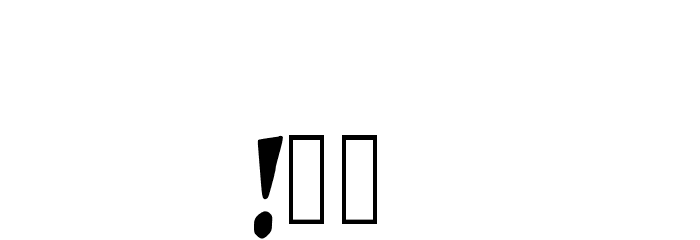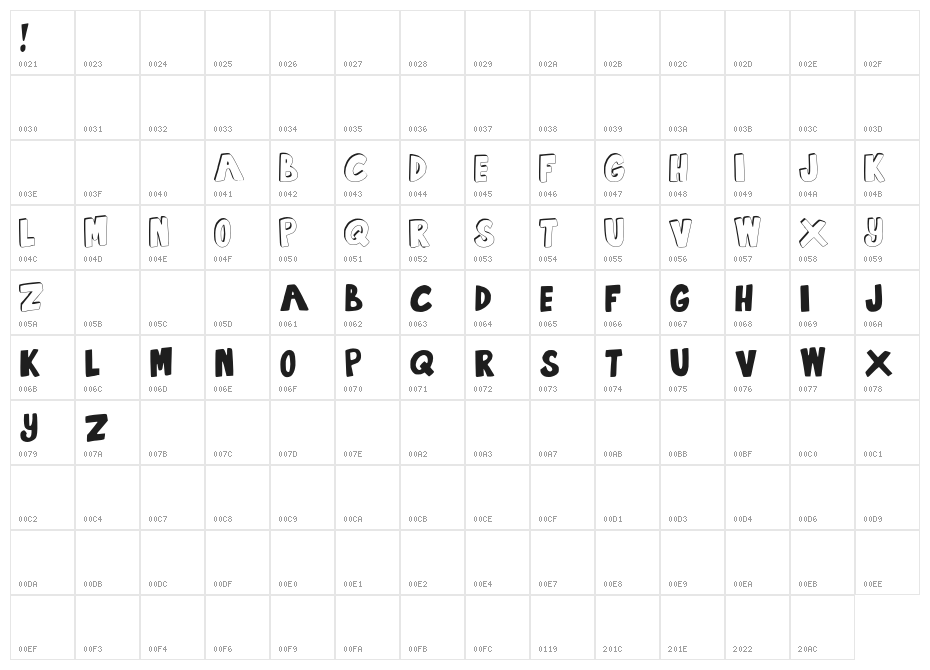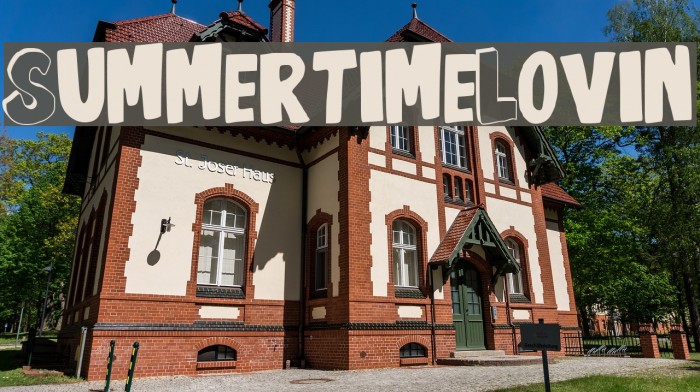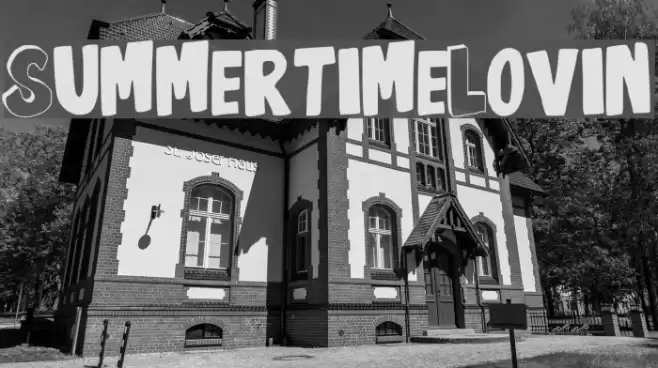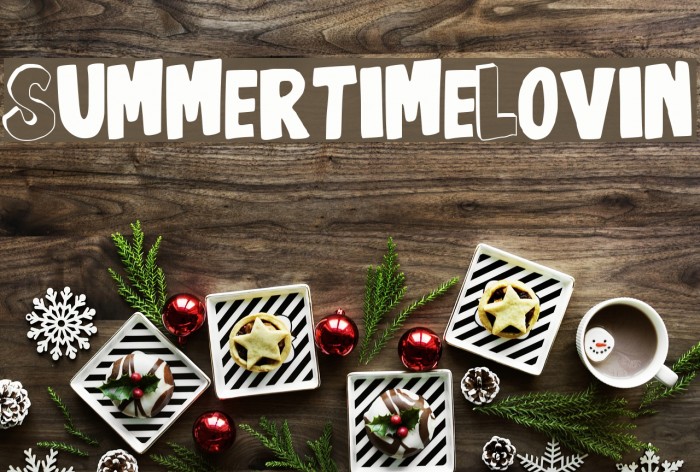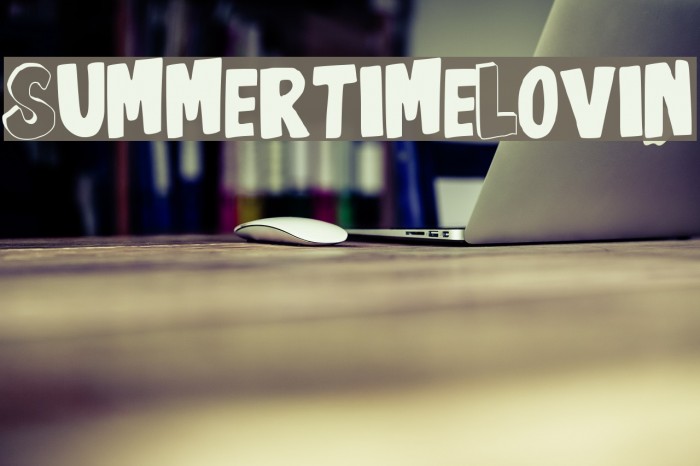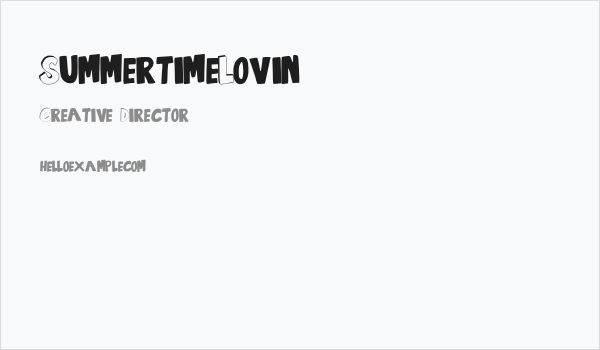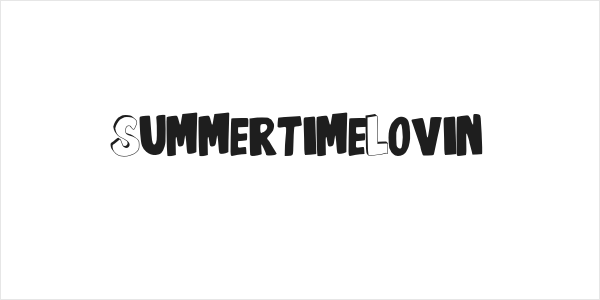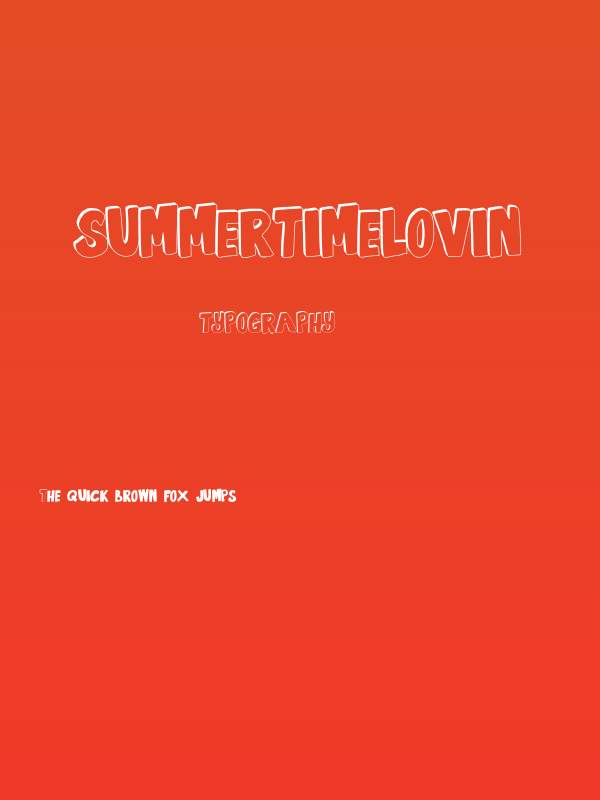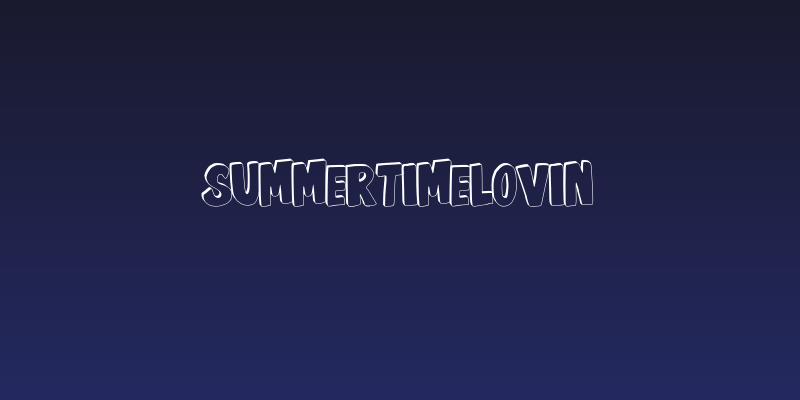
SummertimeLovin Font
SummertimeLovin Description
This playful and bold font features a whimsical, hand-drawn style that exudes a sense of fun and creativity. The uppercase letters are characterized by their thick, uneven strokes and slightly irregular shapes, giving them a lively and dynamic appearance. The font's boldness is consistent throughout, providing a strong visual impact. The lack of lowercase letters and numbers suggests a focus on decorative and headline use. The special characters, including exclamation marks and brackets, maintain the same playful style, enhancing the font's cohesive look. The overall design is reminiscent of a carefree summer vibe, making it ideal for projects that require a touch of joy and spontaneity.
| Proposed Projects | Ideal for children's book covers, playful posters, party invitations, and any design needing a fun, energetic touch. |